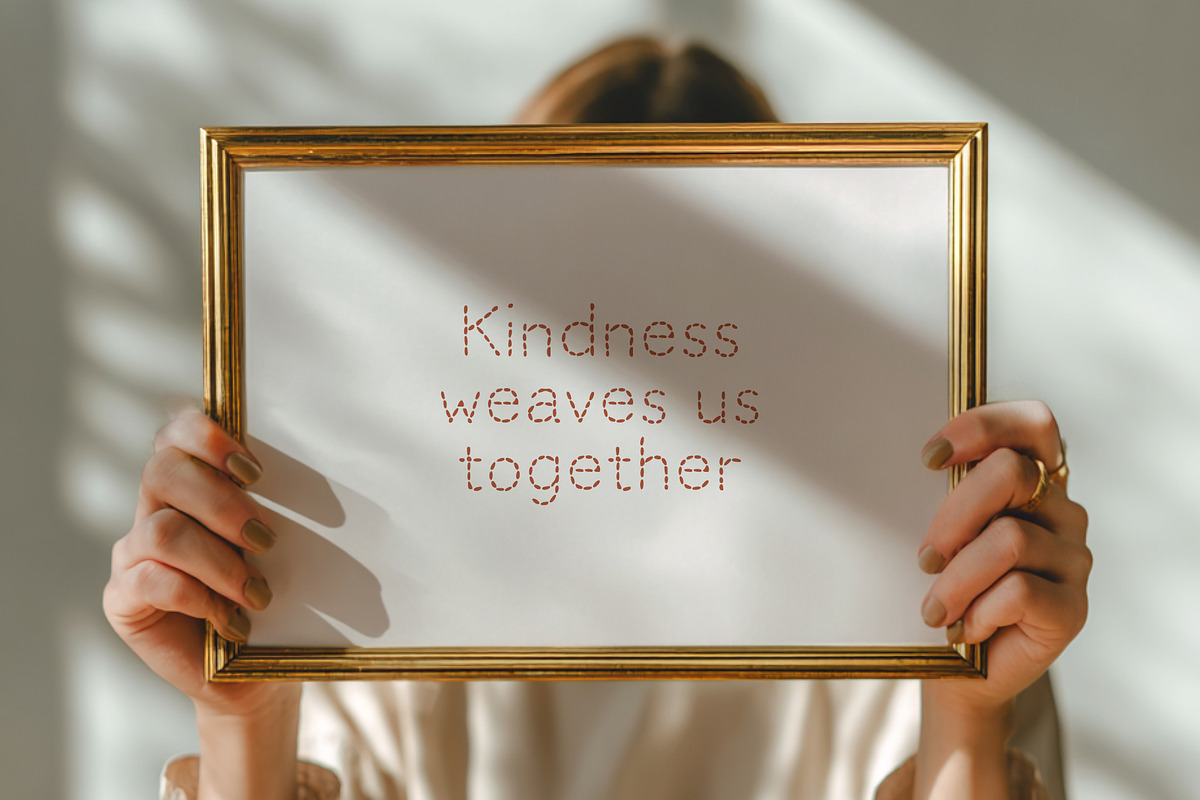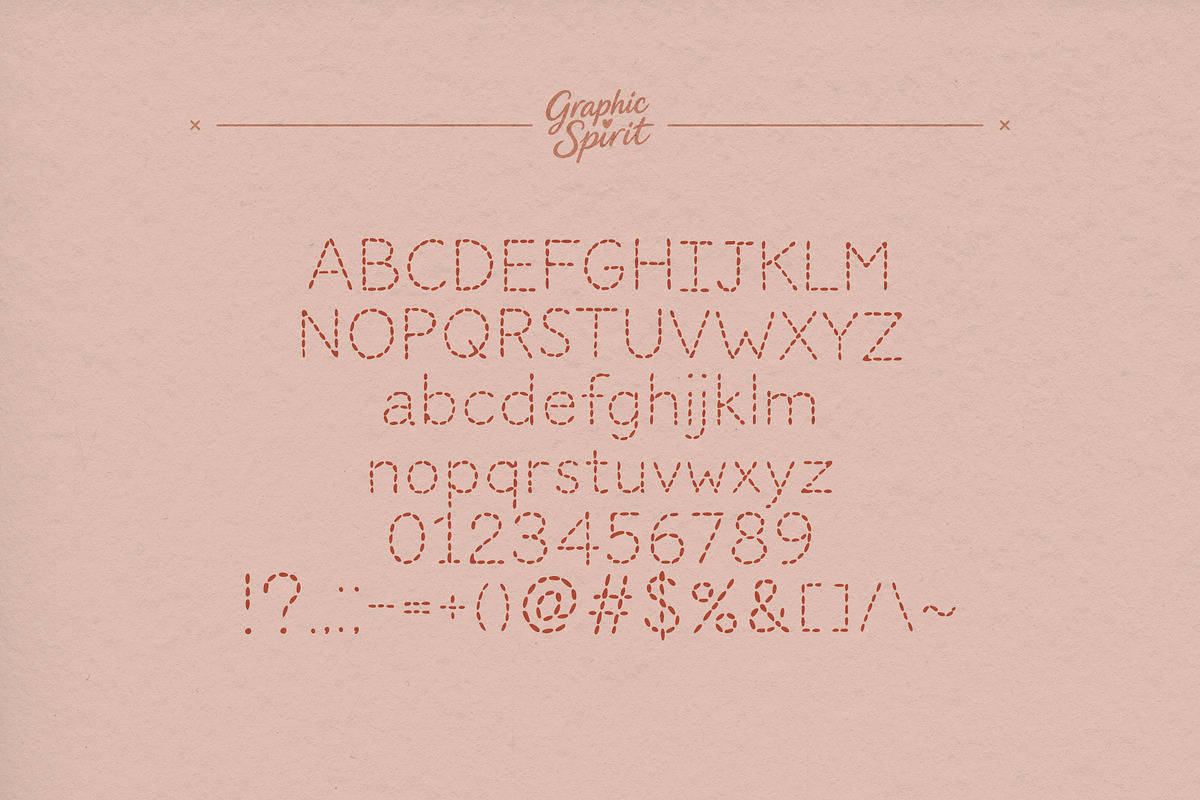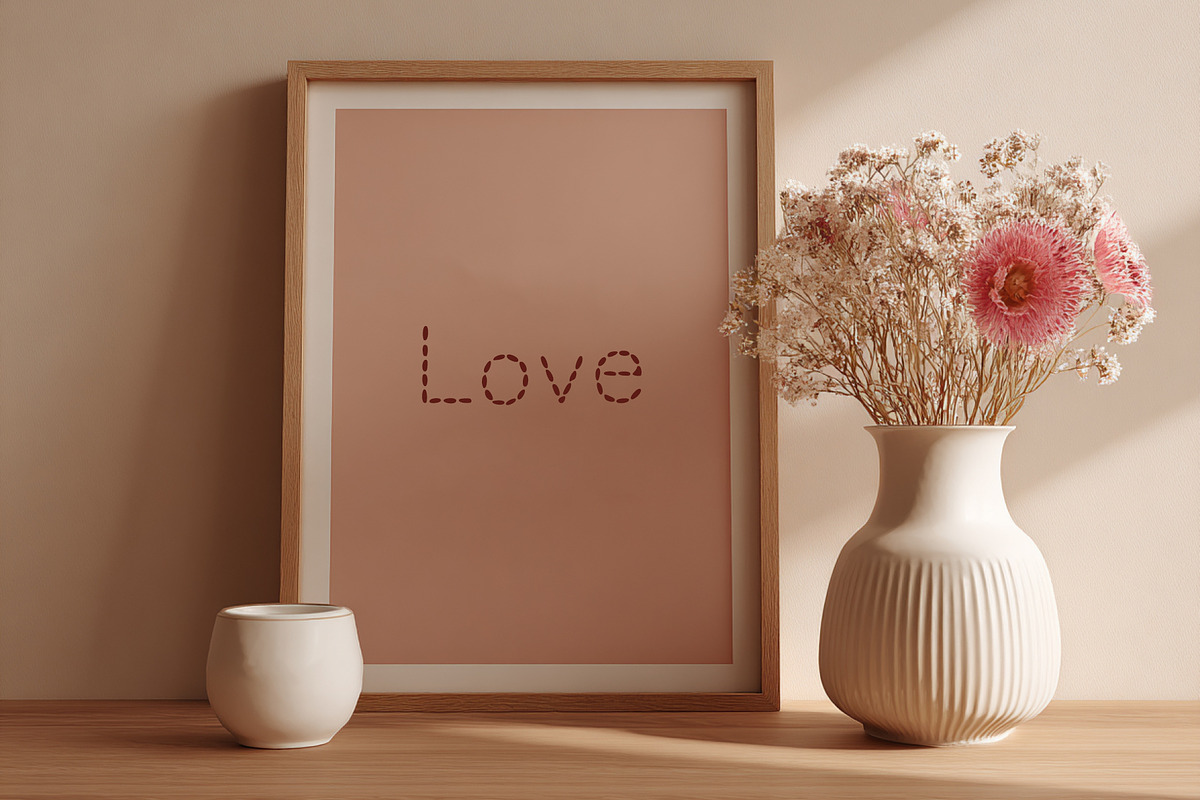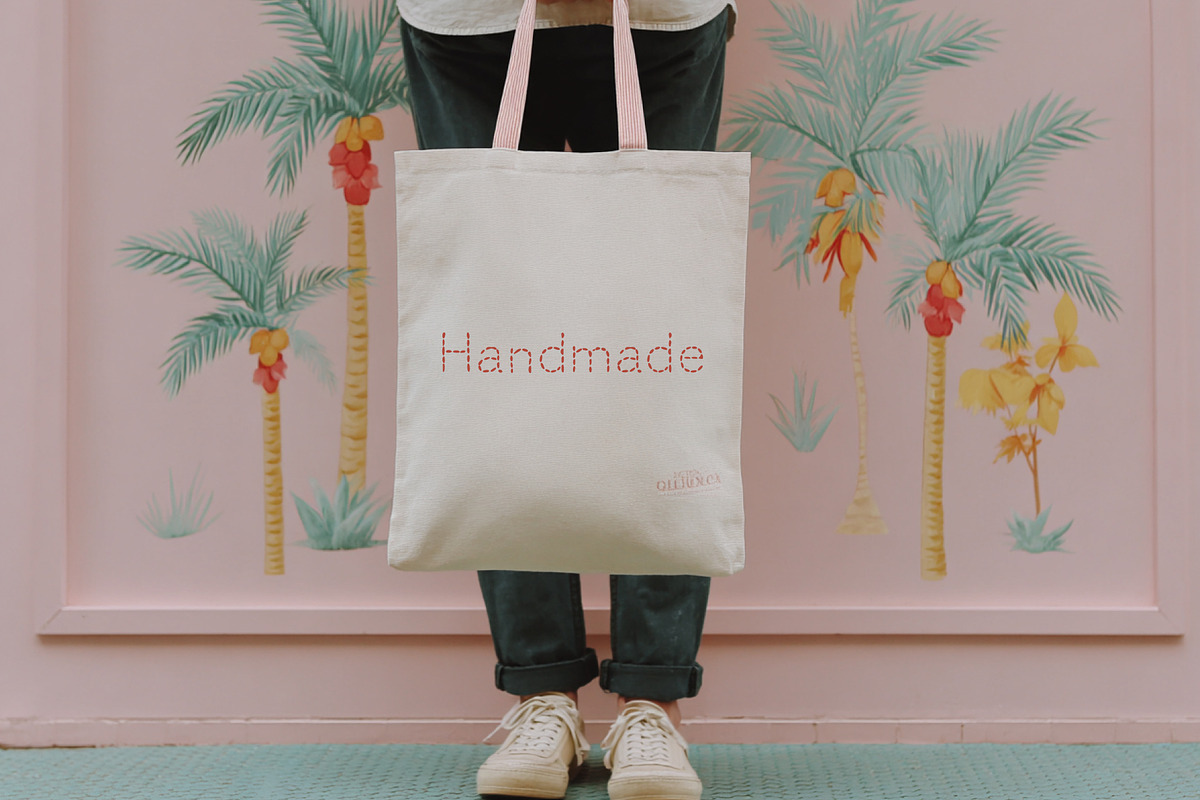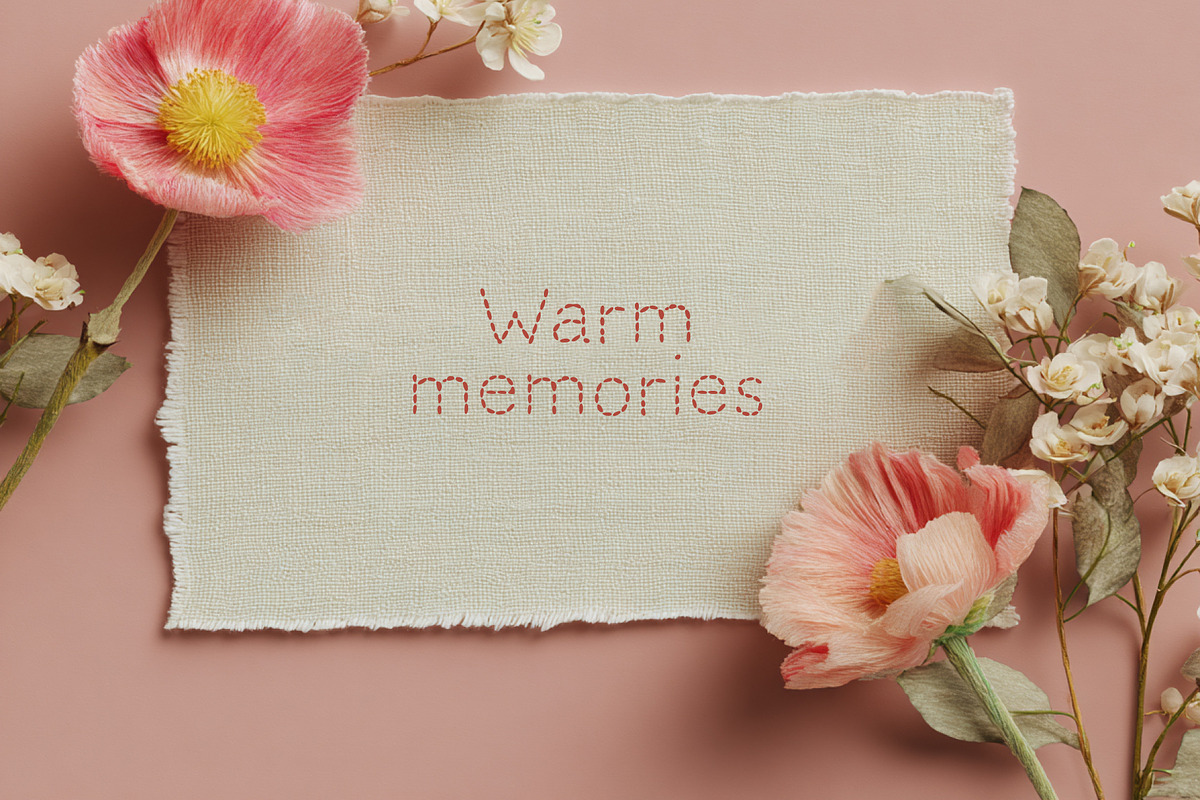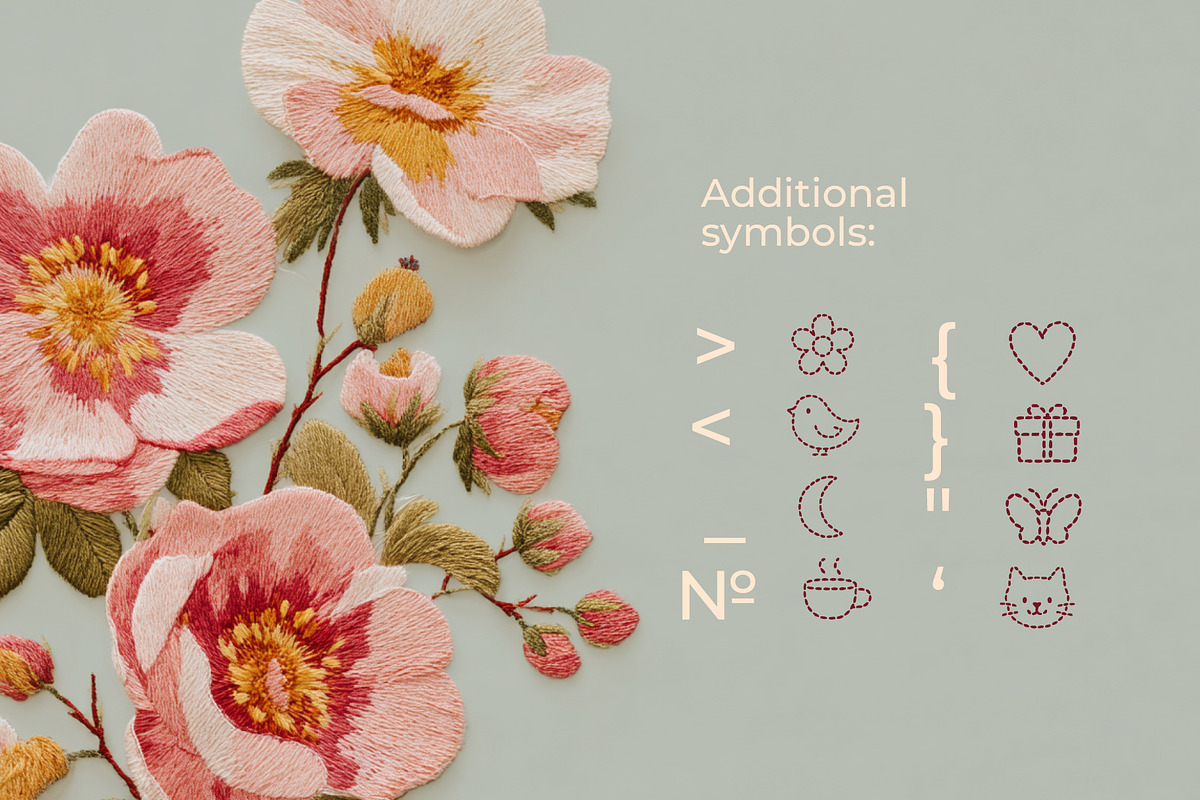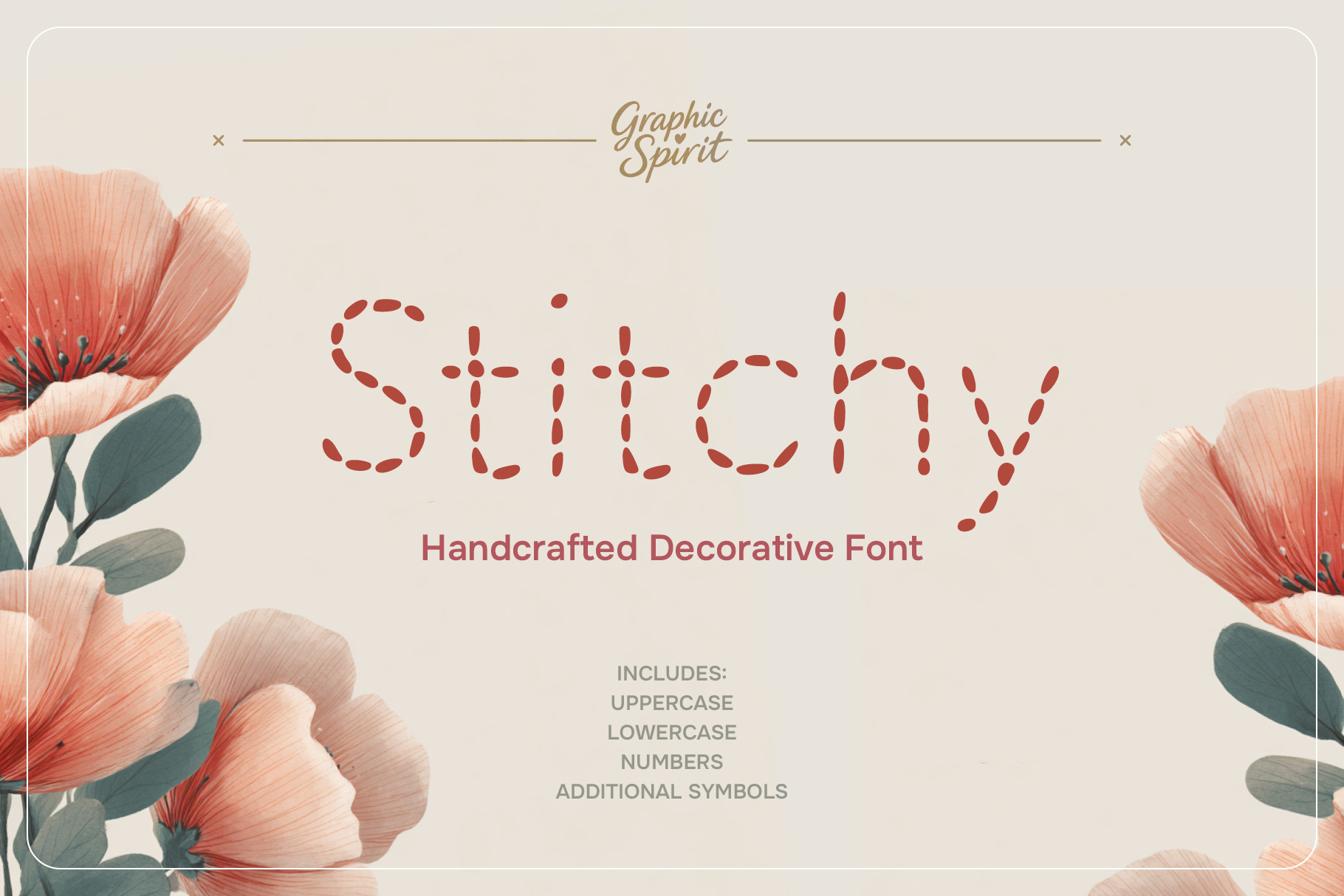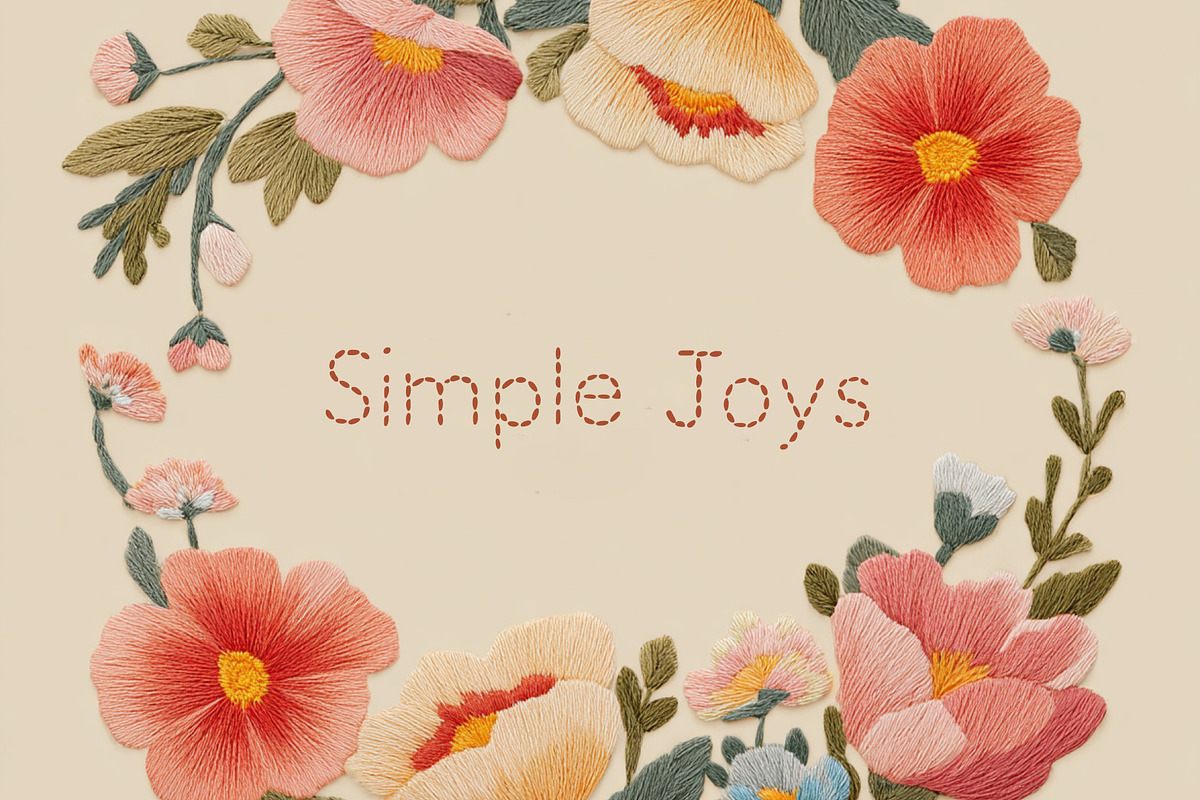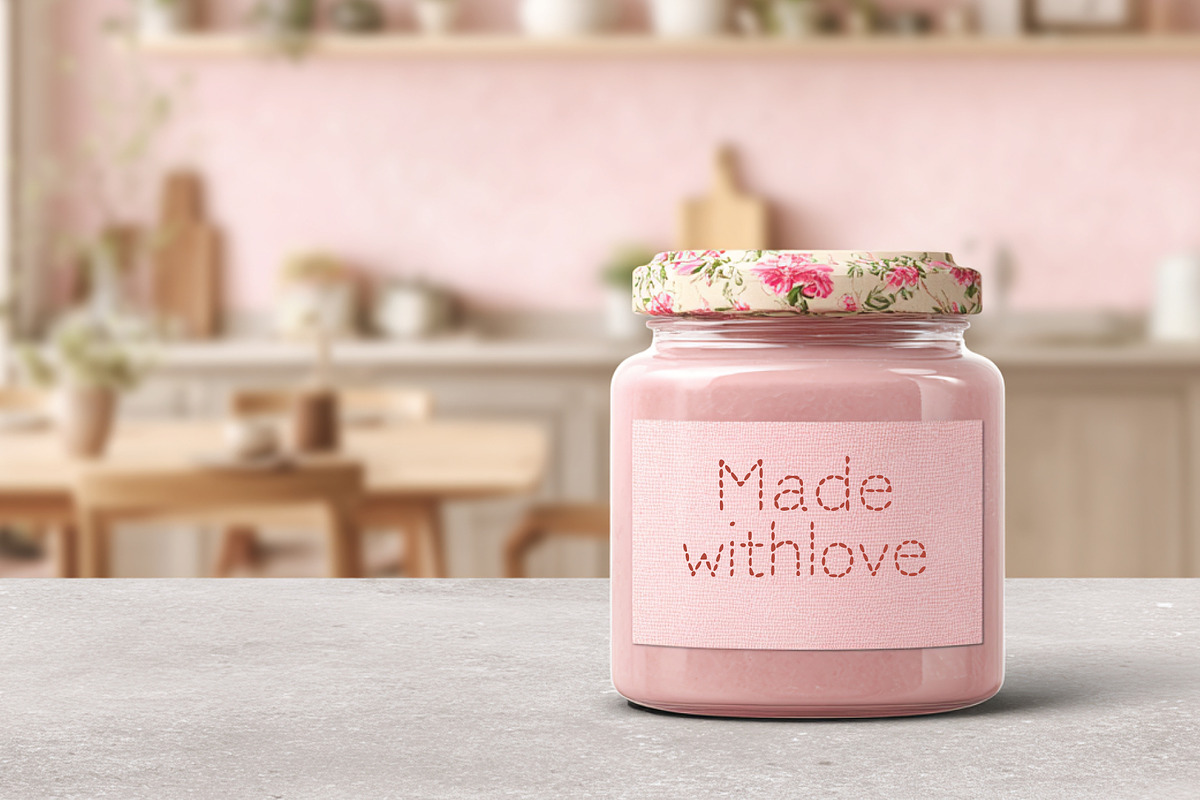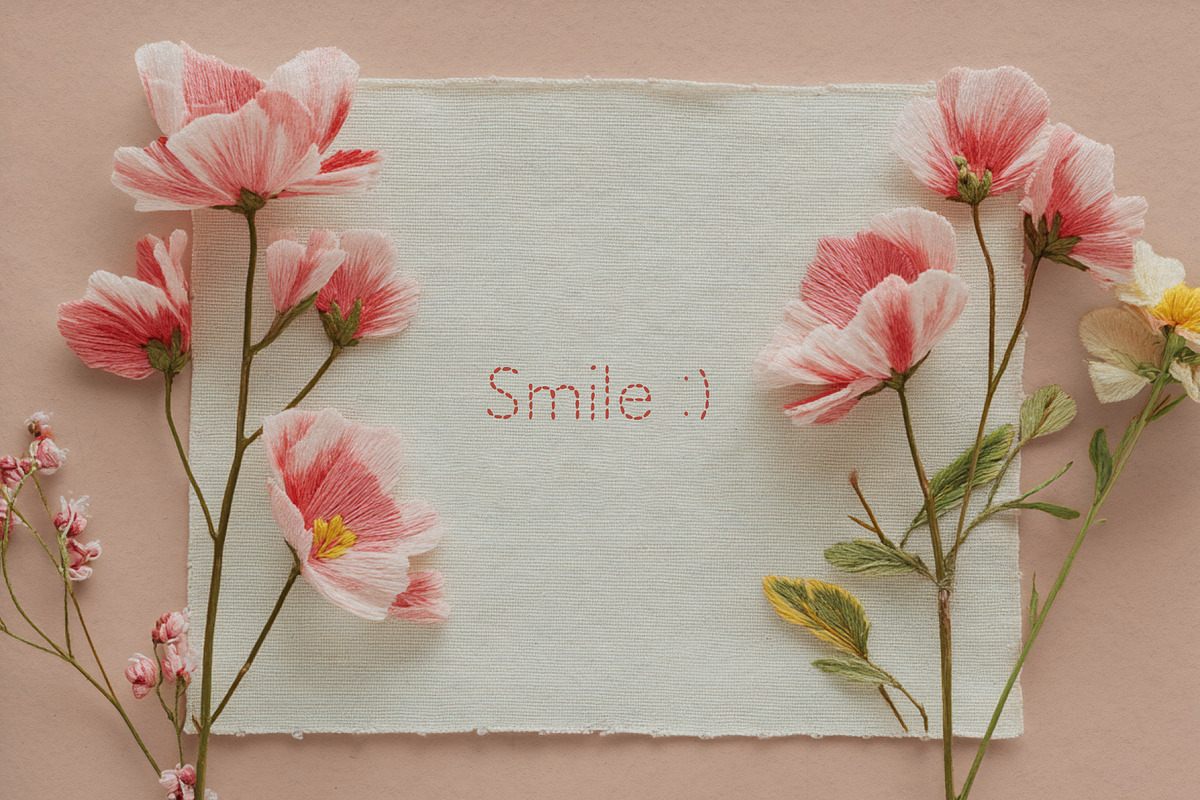
Stitchy Handcrafted Decorative Font
Stitchy Handcrafted Decorative Font is a charming and whimsical typeface that brings a touch of handmade elegance to your designs. This font is perfect for adding a personal and artistic touch to your projects, from invitations and greeting cards to logos and branding. With its unique, hand-drawn style, Stitchy captures the essence of craftsmanship and creativity. Perfect for adding a unique, personal touch to logos, wedding invitations, product labels, and all your DIY craft projects.